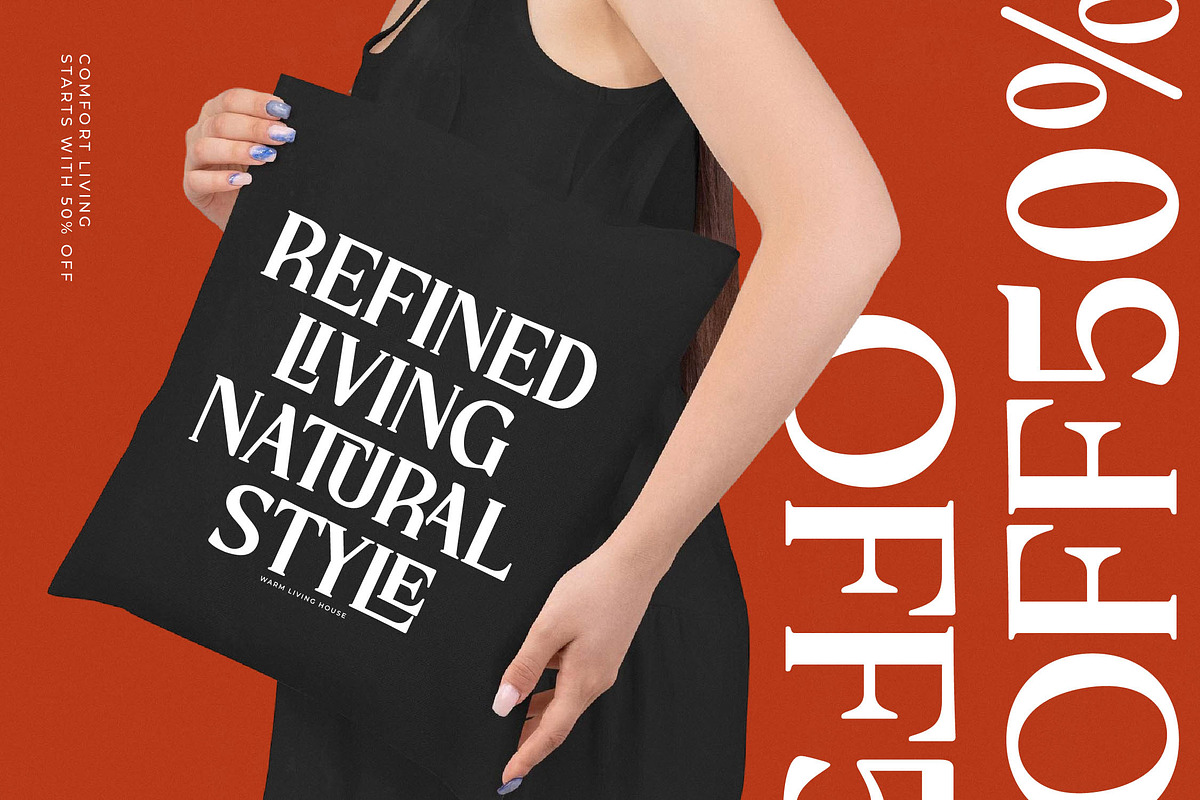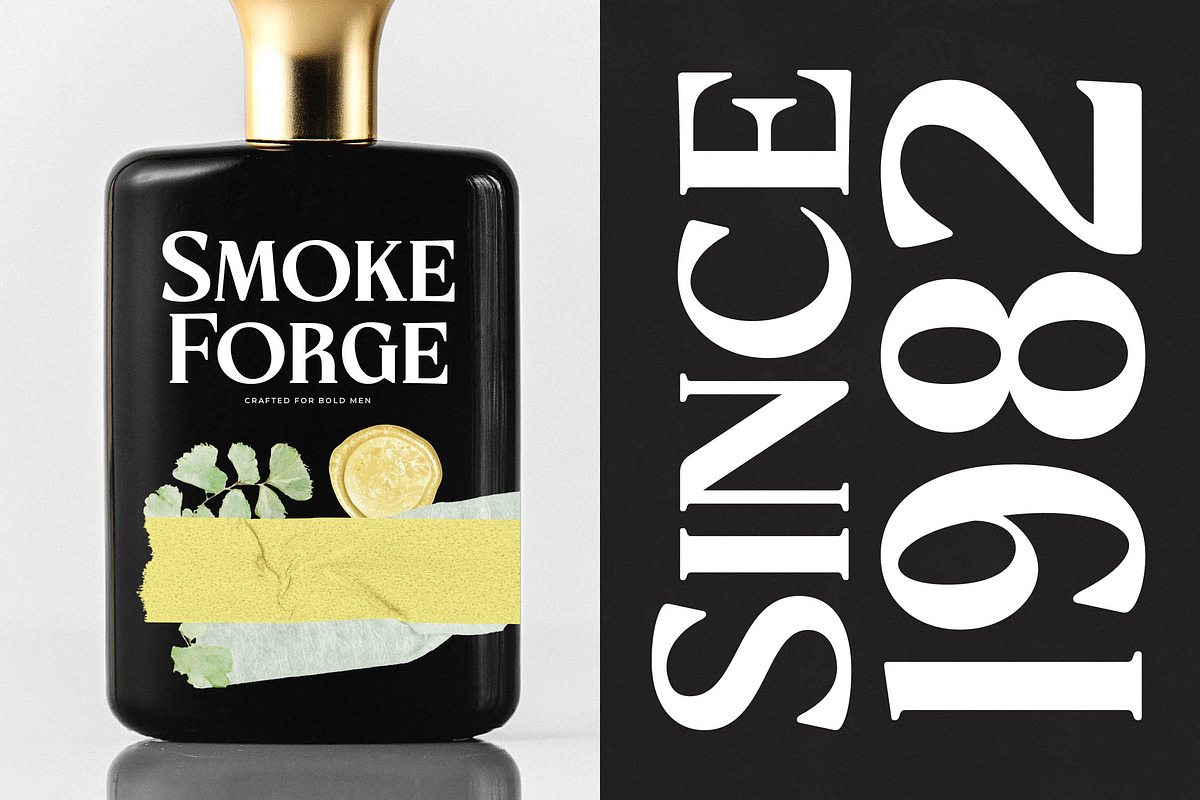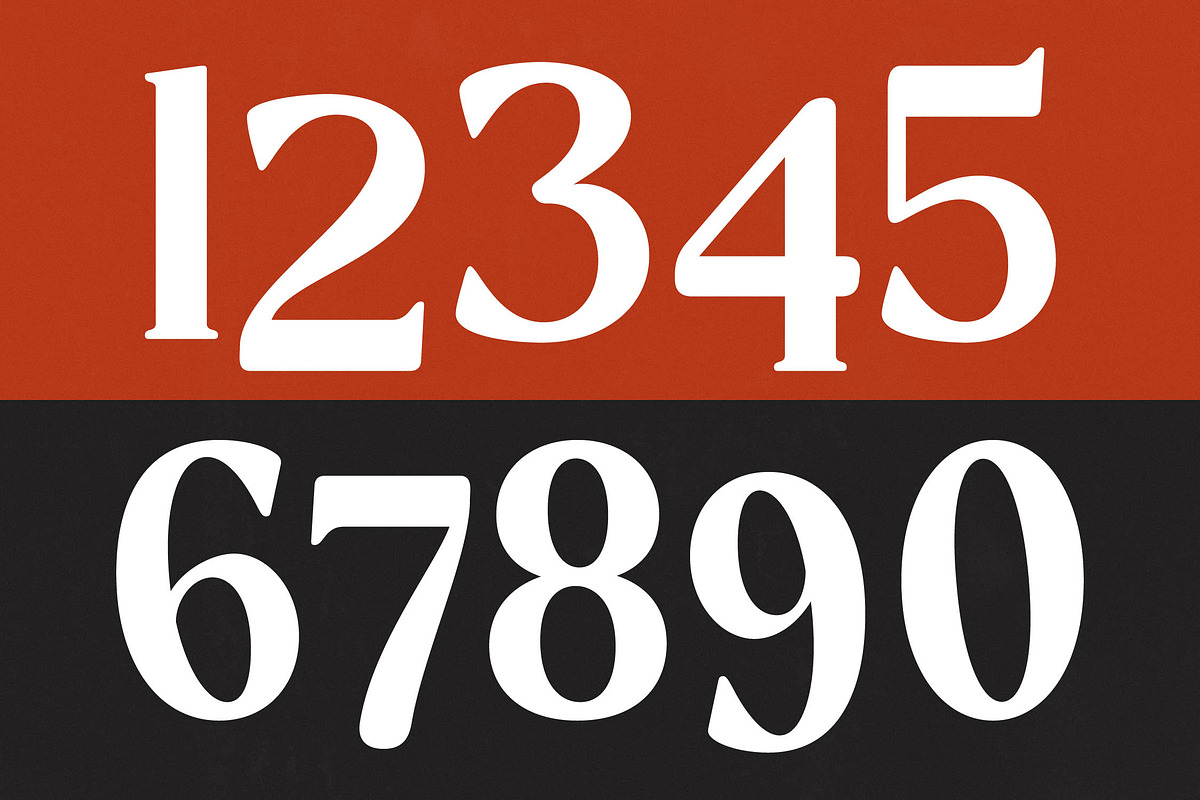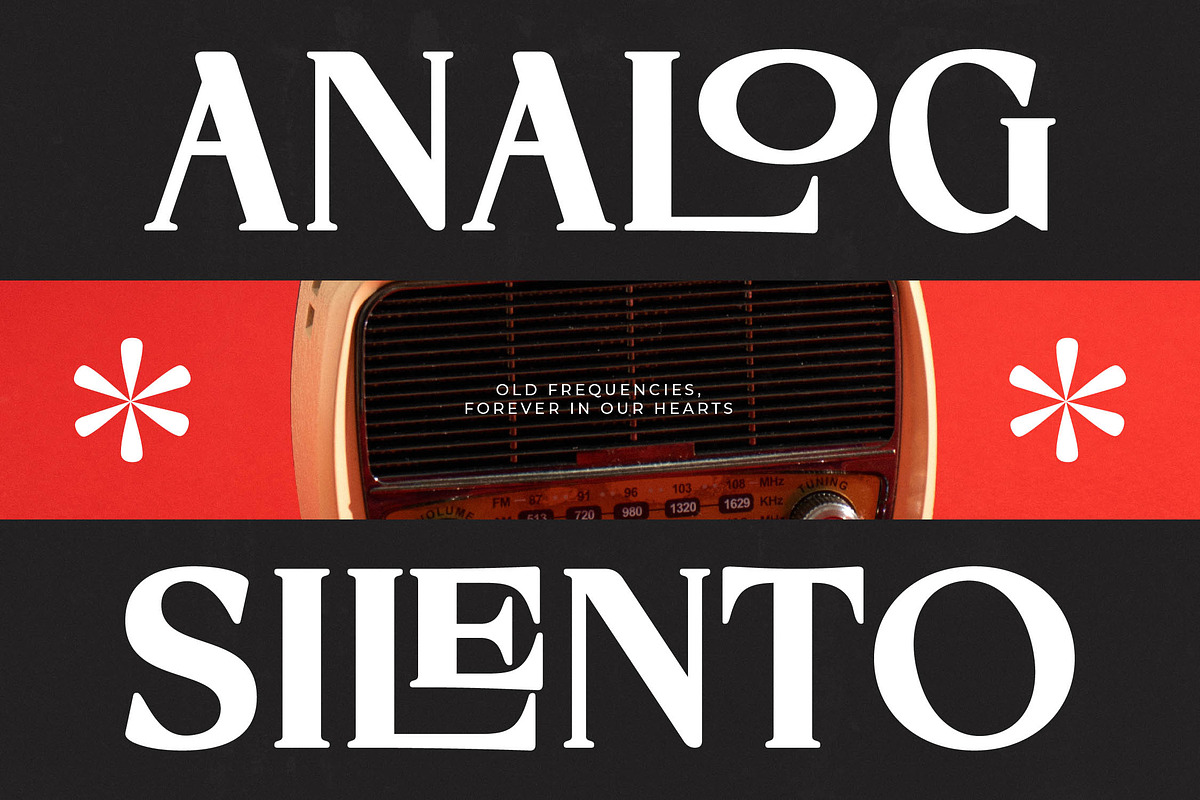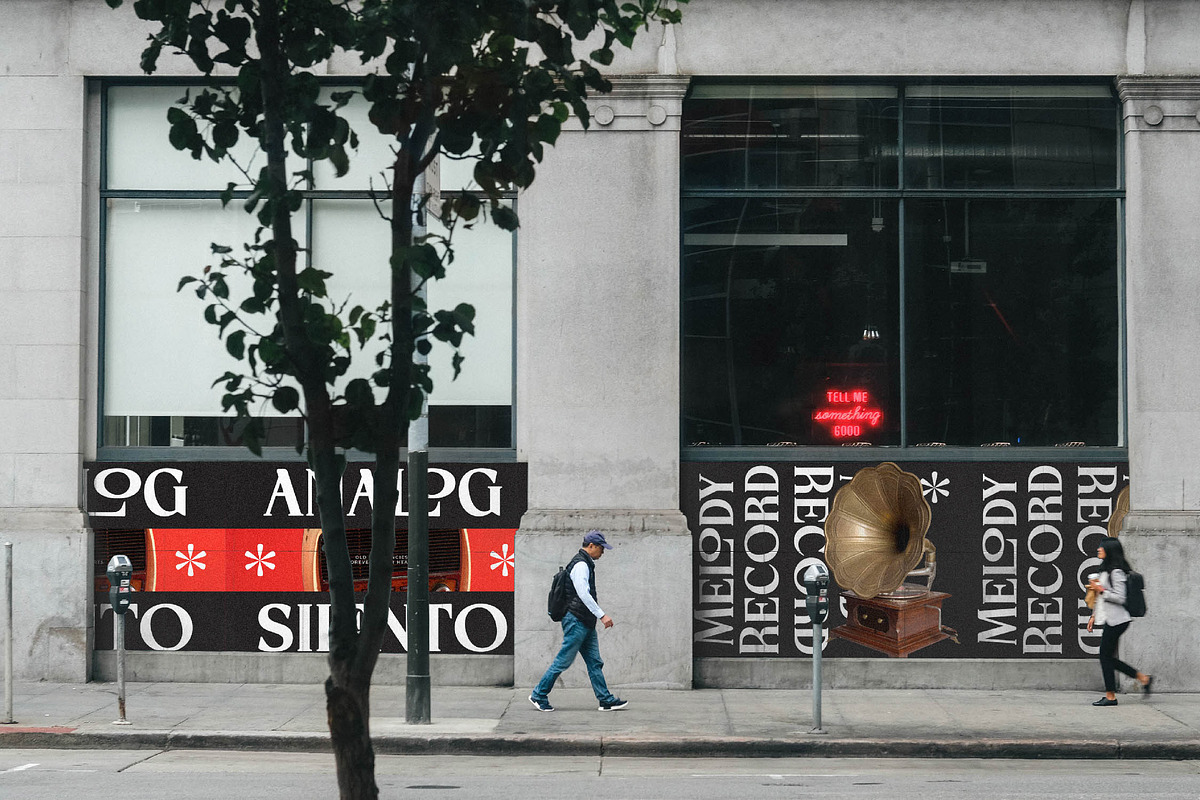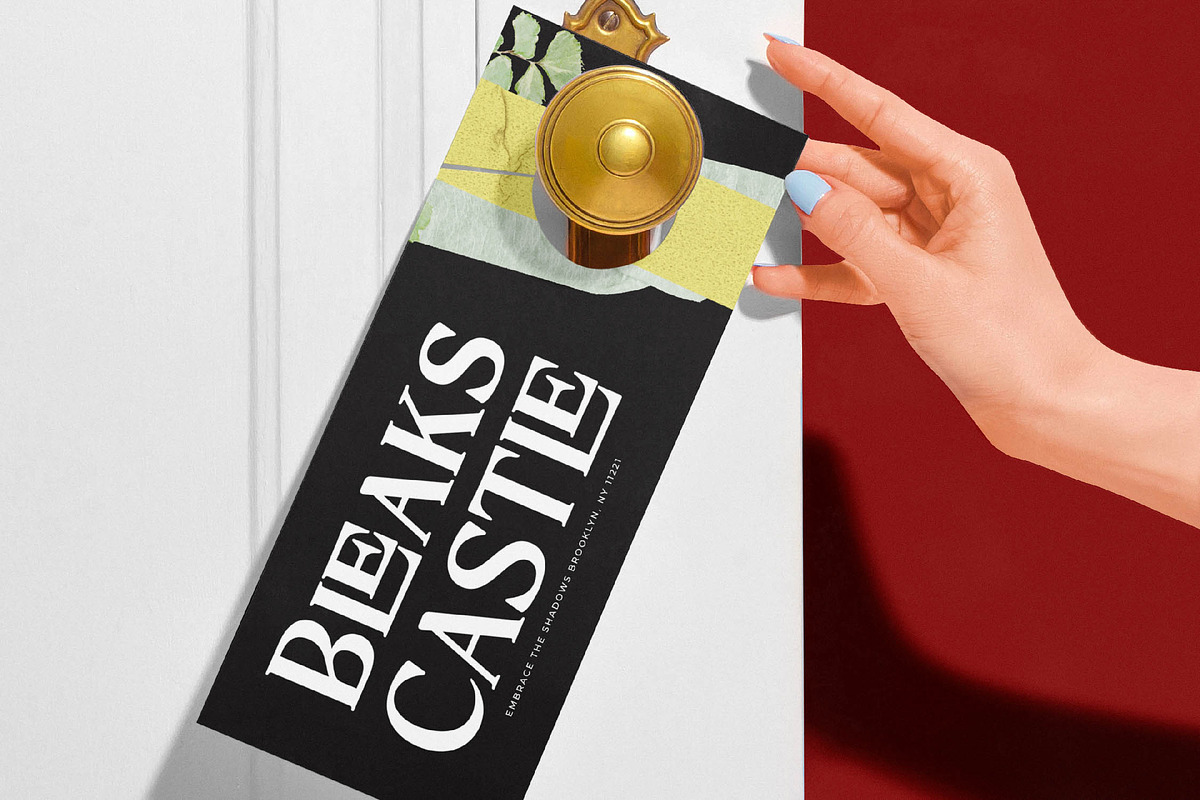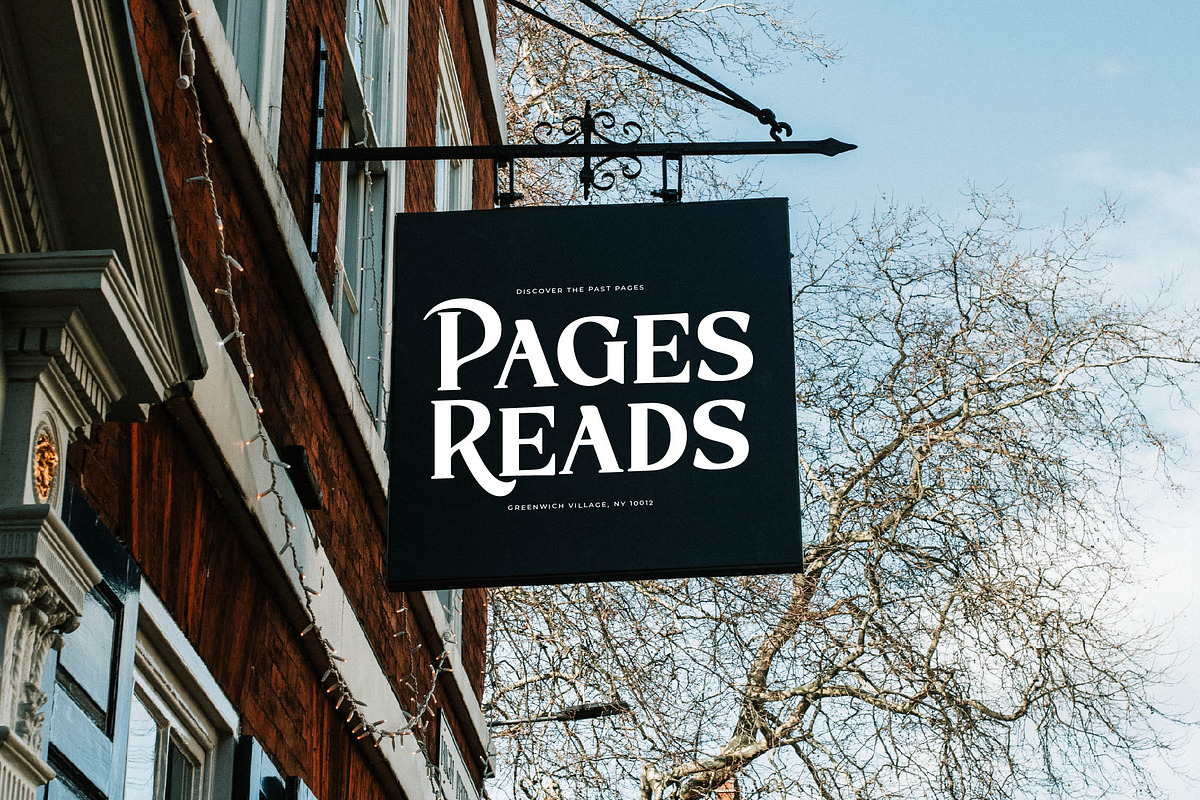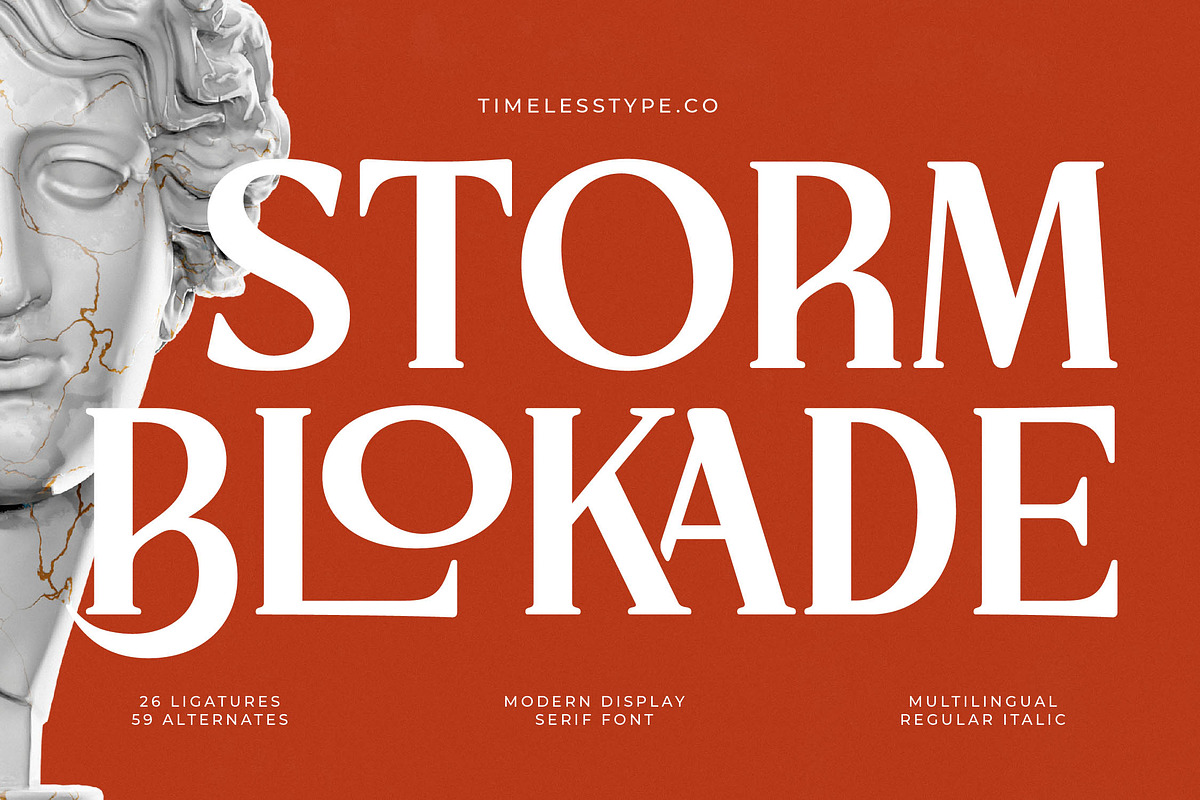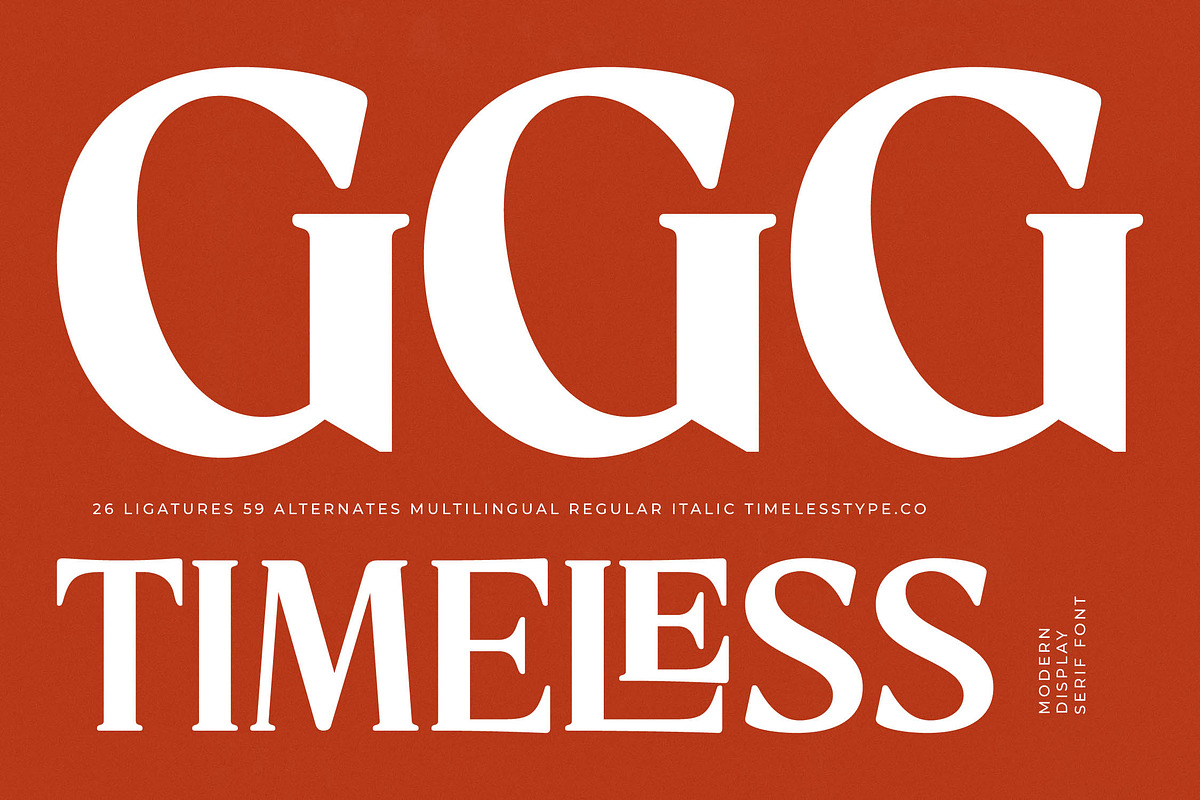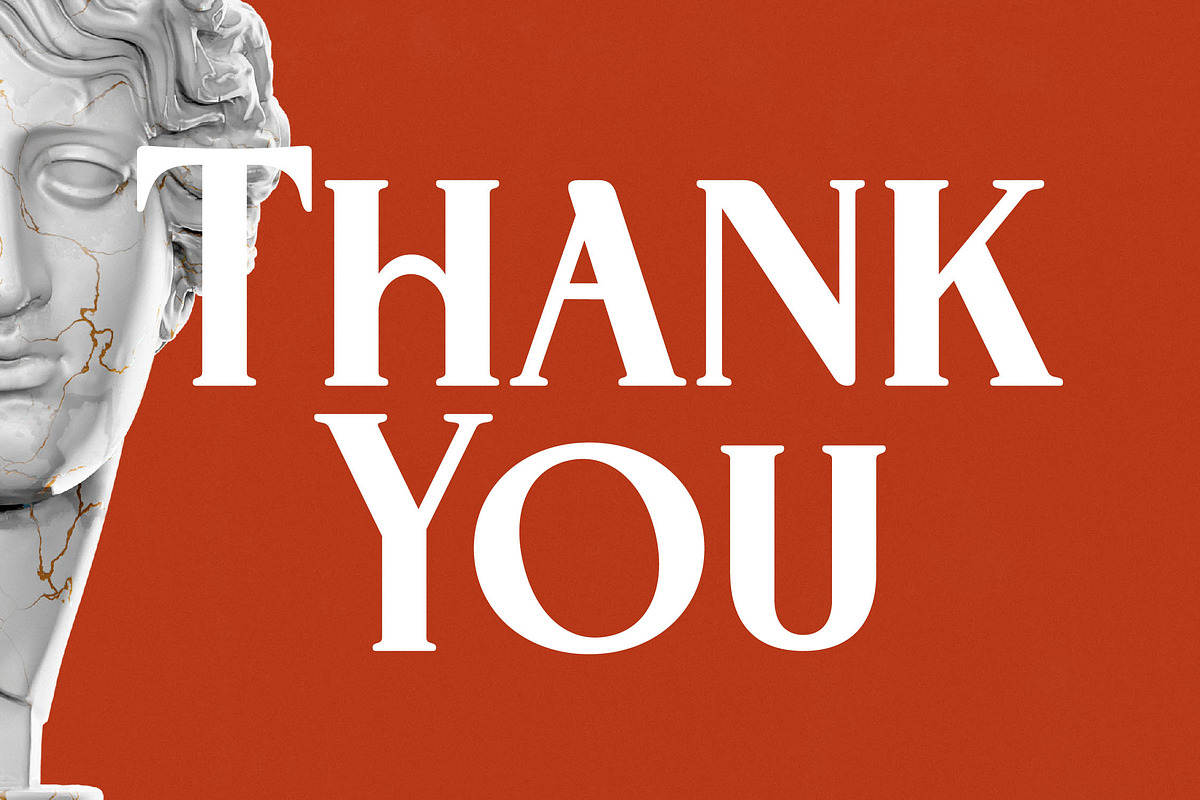
Storm Blokade Modern Display Serif
Storm Blokade stands at the intersection of classical artistry and contemporary sophistication, offering a visual language that commands attention with every stroke. It is a font designed for those who seek to imbue their projects with an undeniable sense of prestige and timeless grace.
Drawing inspiration from the stoic beauty of ancient sculptures and the raw elegance of weathered marble, this typeface captures a spirit of enduring strength. The interplay between sharp edges and flowing curves mirrors the meticulous craftsmanship of a master artisan, bringing a touch of history to the modern screen.
As a premier modern serif display choice, this typeface redefines luxury typography through its deliberate proportions and refined aesthetic. The high-contrast serif design ensures that every headline serves as a statement piece, functioning as a high-end editorial font that delivers a significant branding impact for discerning clients.
Perfectly aligned with the current modern serif trend, this collection meets the rising demand for sophisticated editorial display fonts in high-stakes visual communication. It leverages character-driven typography to provide designers with a versatile toolkit that transcends fleeting styles, ensuring longevity in a crowded digital landscape.
Whether you are crafting a distinctive logo design or developing a comprehensive corporate branding identity, this font excels in high-visibility applications. It is the ideal companion for high-fashion editorial spreads, luxury packaging, bespoke wedding stationery, and any fashion project that requires a touch of haute couture.
The package is enhanced by a rich set of 26 ligatures and 59 alternates, allowing for customized text arrangements and decorative swashes that feel truly unique. Full multilingual support and a comprehensive range of international characters ensure global accessibility across both regular and italic styles.
- Ligature 26 Alternate 59